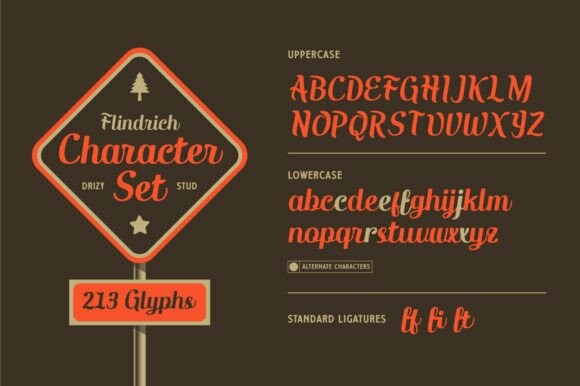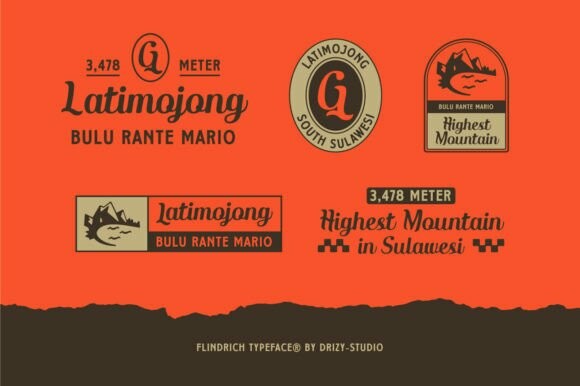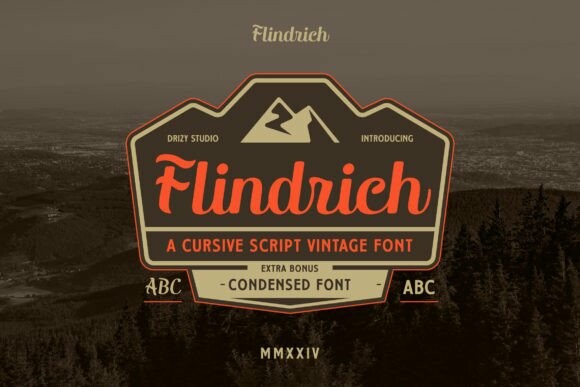
Flindrich Font
Designer: Drizy Studio
Flindrich Font is an Adventures Patch unique, adventurous typeface that captures the spirit of exploration and rugged outdoor experiences. This font features bold, hand-crafted lettering with a vintage touch, reminiscent of classic adventure logos and patches. Its rough edges and organic lines evoke a sense of authenticity and nostalgia, making it perfect for branding projects related to travel, outdoor activities, and adventure sports. This font not only brings a sense of adventure but also tells a story of exploration and discovery, making it an excellent choice for projects aiming to inspire and captivate an audience with a love for the great outdoors.